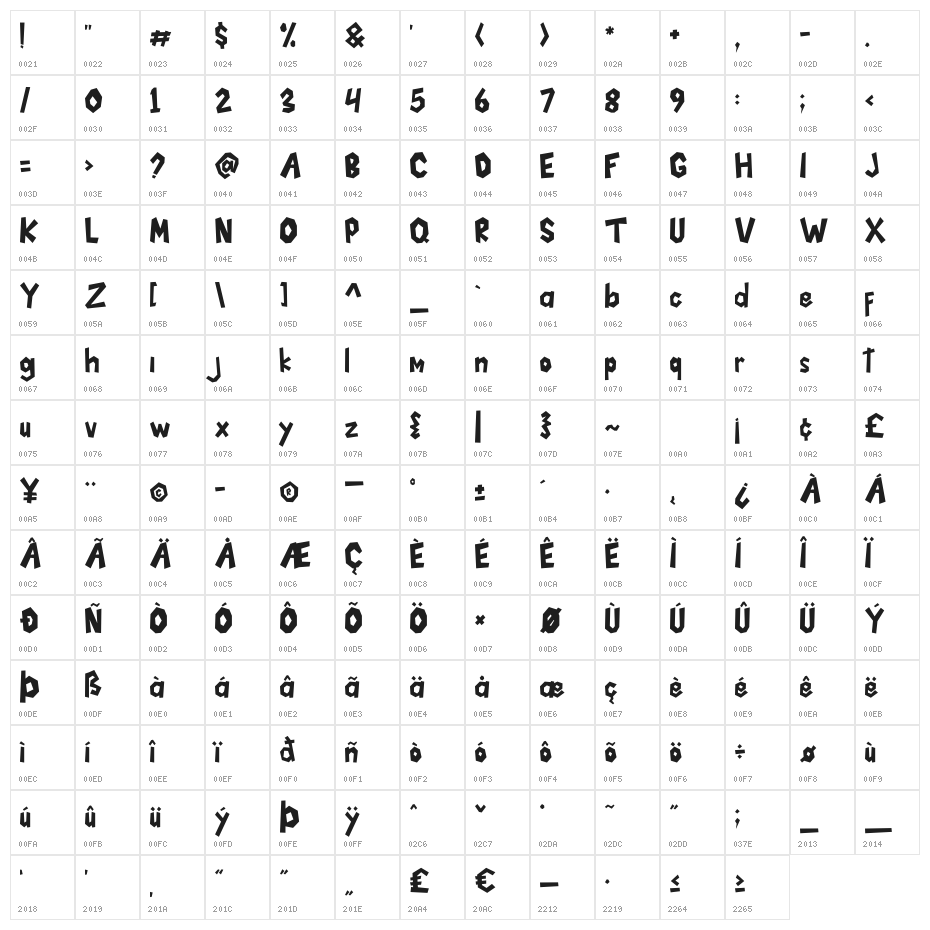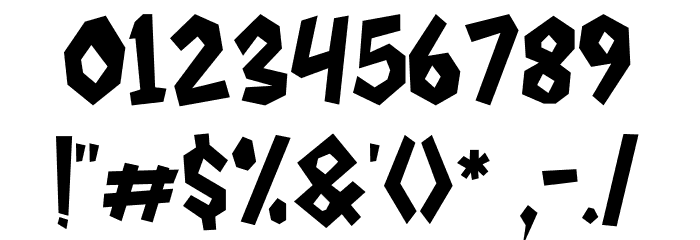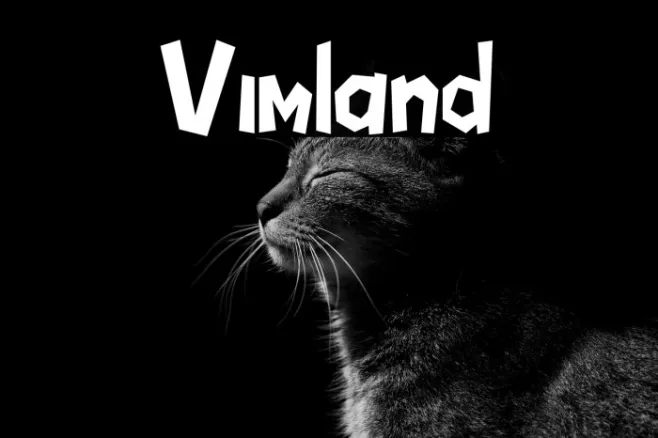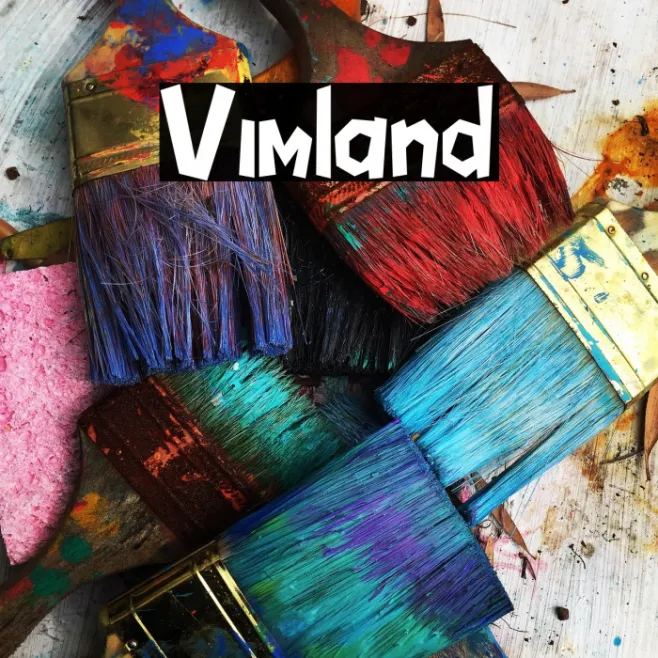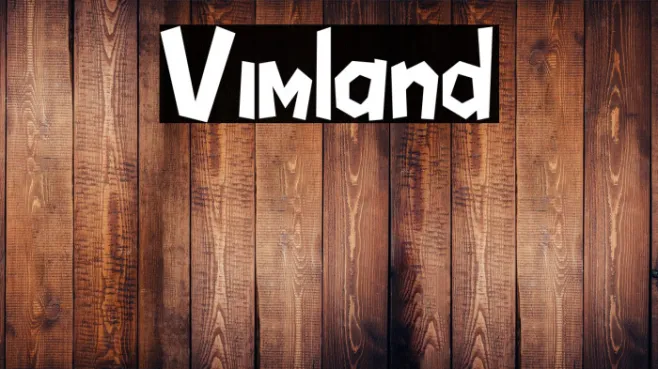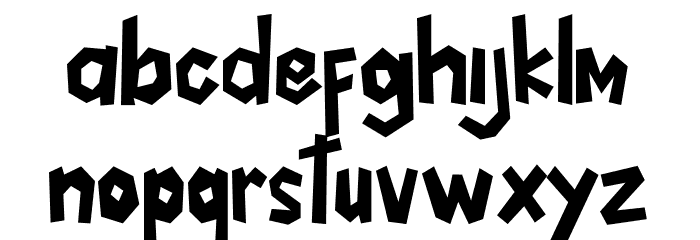
Vimland Font
Vimland Description
This font features a bold, angular style with a playful and slightly chaotic appearance. The characters are designed with sharp, irregular edges, giving them a dynamic and energetic feel. The uppercase and lowercase letters maintain a consistent style, with a noticeable tilt and uneven baseline that adds to the font's unique character. The numerals and special characters follow the same design principles, ensuring a cohesive look across all glyphs. This font is ideal for projects that require a bold and unconventional aesthetic.
| Proposed Projects | Perfect for posters, album covers, video game graphics, and any project needing a bold, unconventional look. |